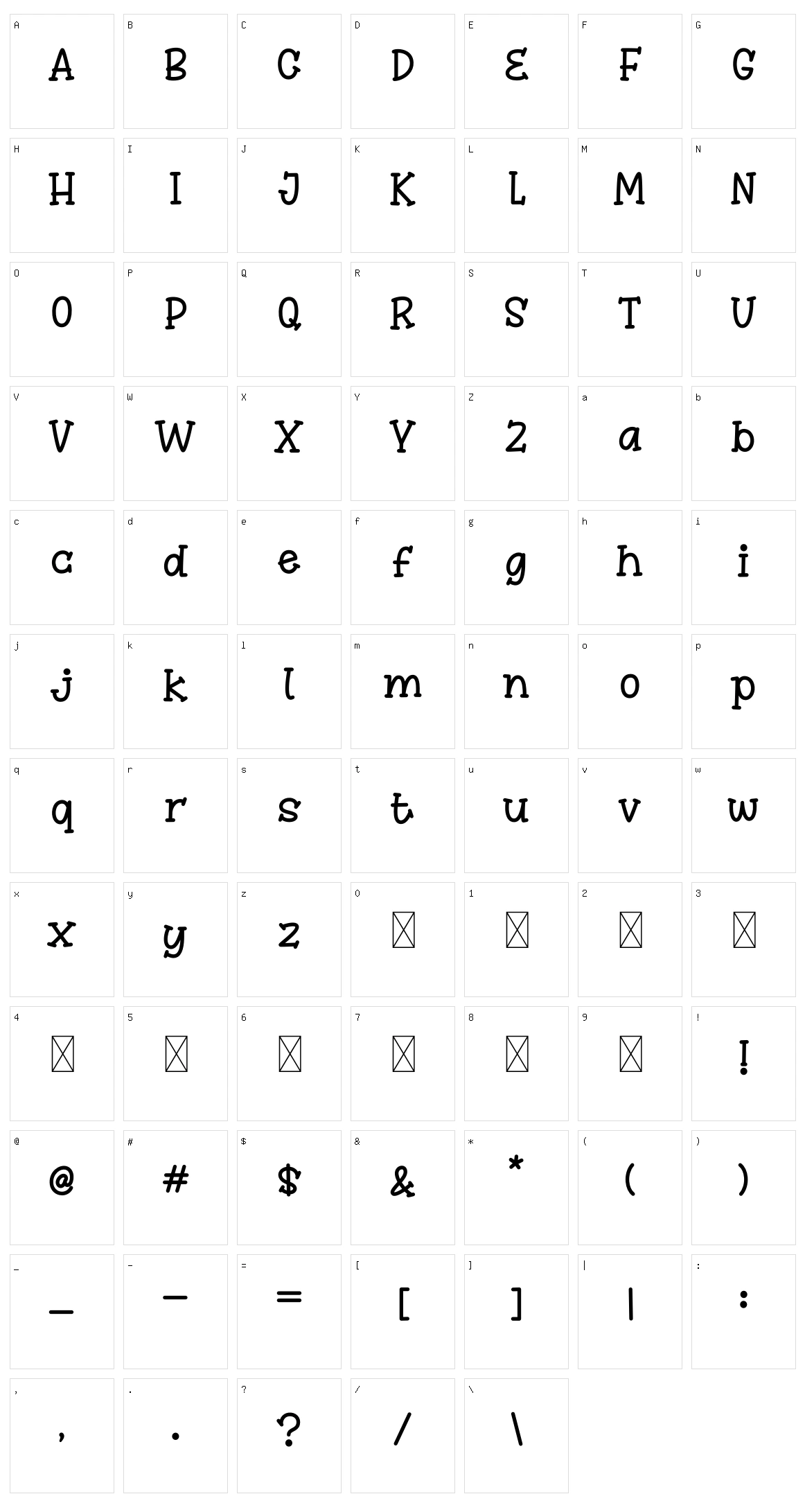
The free font Winsten Sparky is carefully designed by Kotak Kuning Studio, showcasing a thoughtful balance of creativity and usability and falls under the Cartoon font style. When you download the ZIP file, it contains only 59.79 KB of font files, making it lightweight and quick to download. Please review the license details below to understand permitted usage and distribution rights. If license information is not available, we recommend using this font for personal projects only or contacting the author directly for commercial usage permissions.